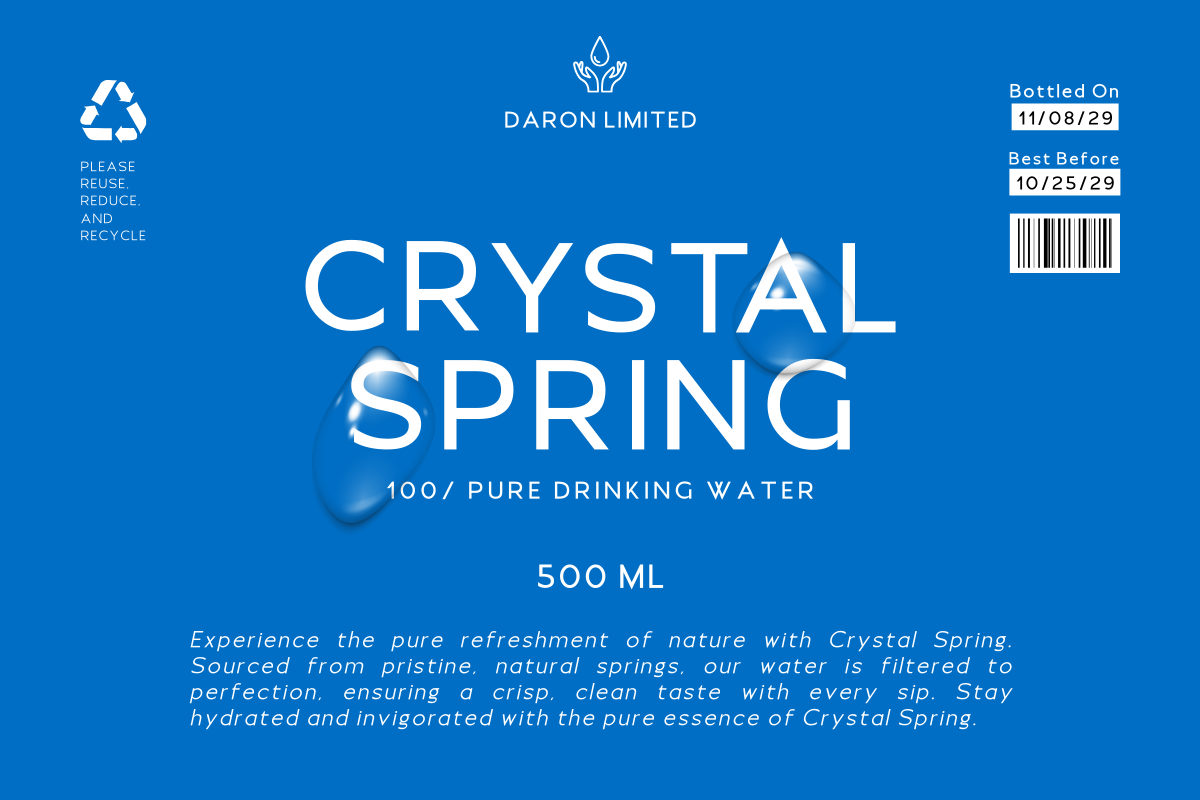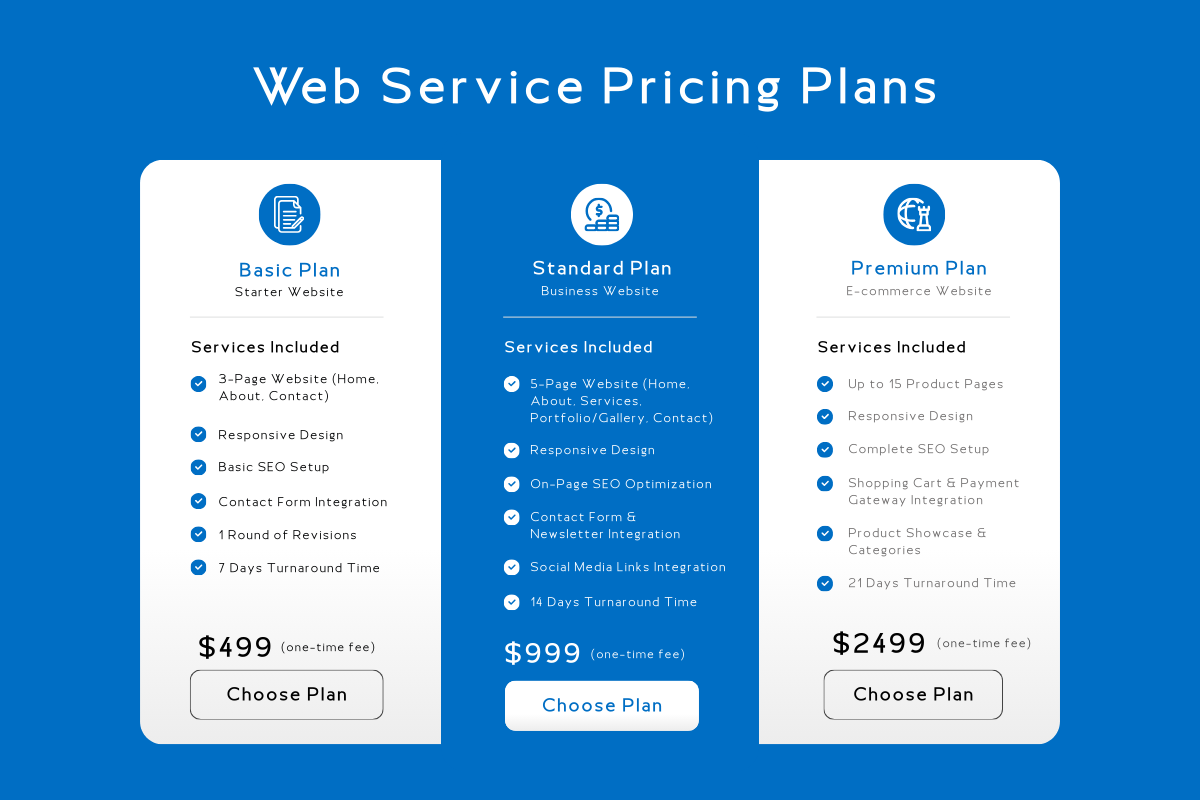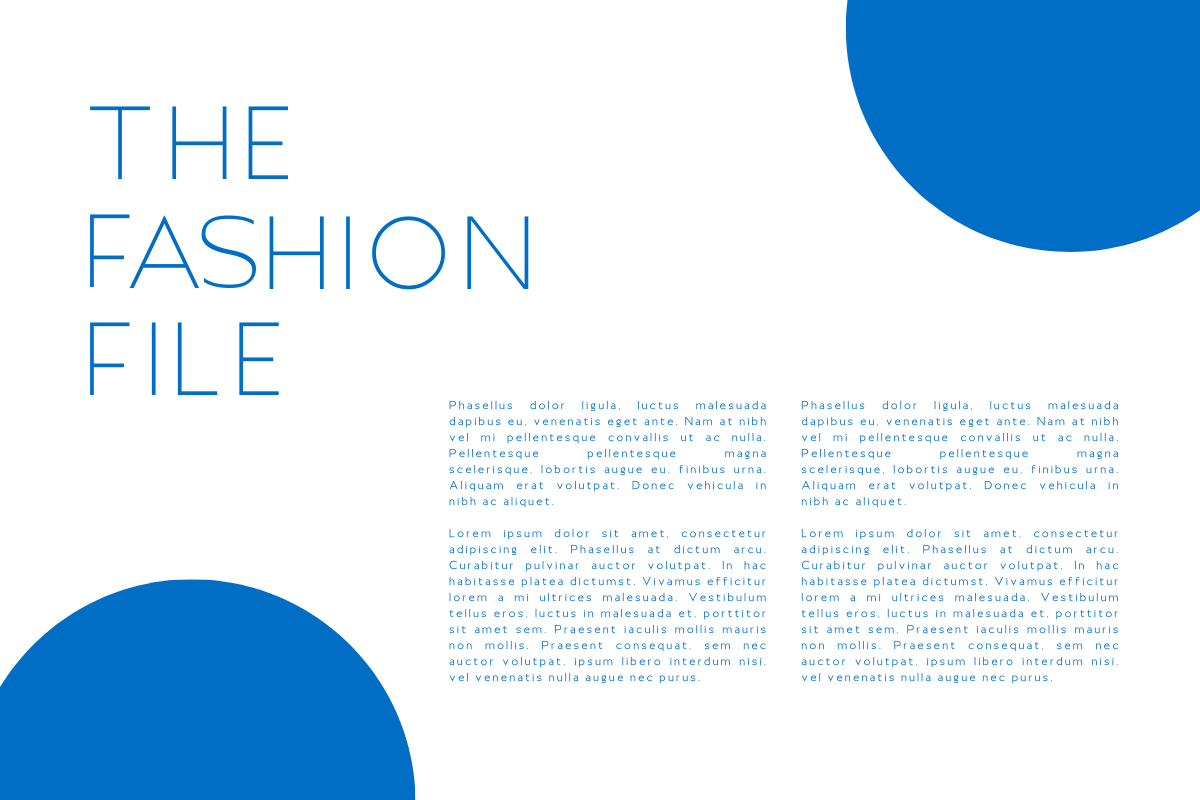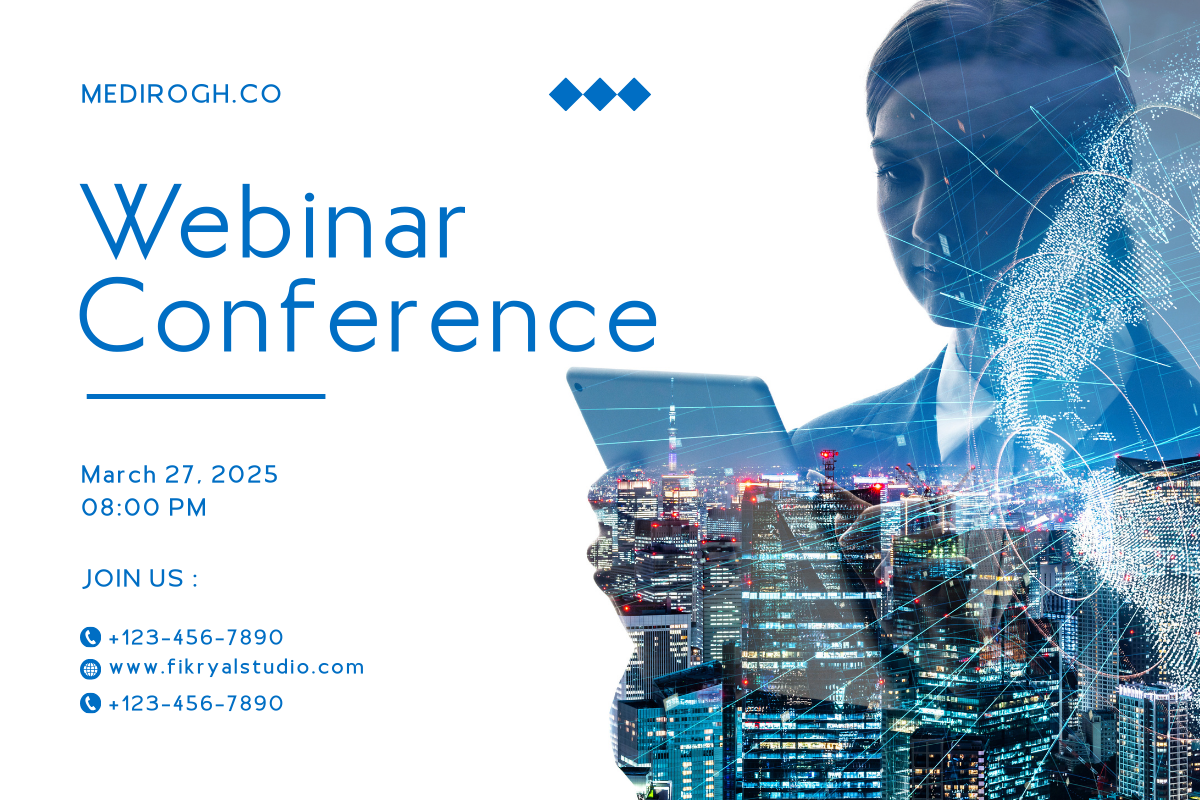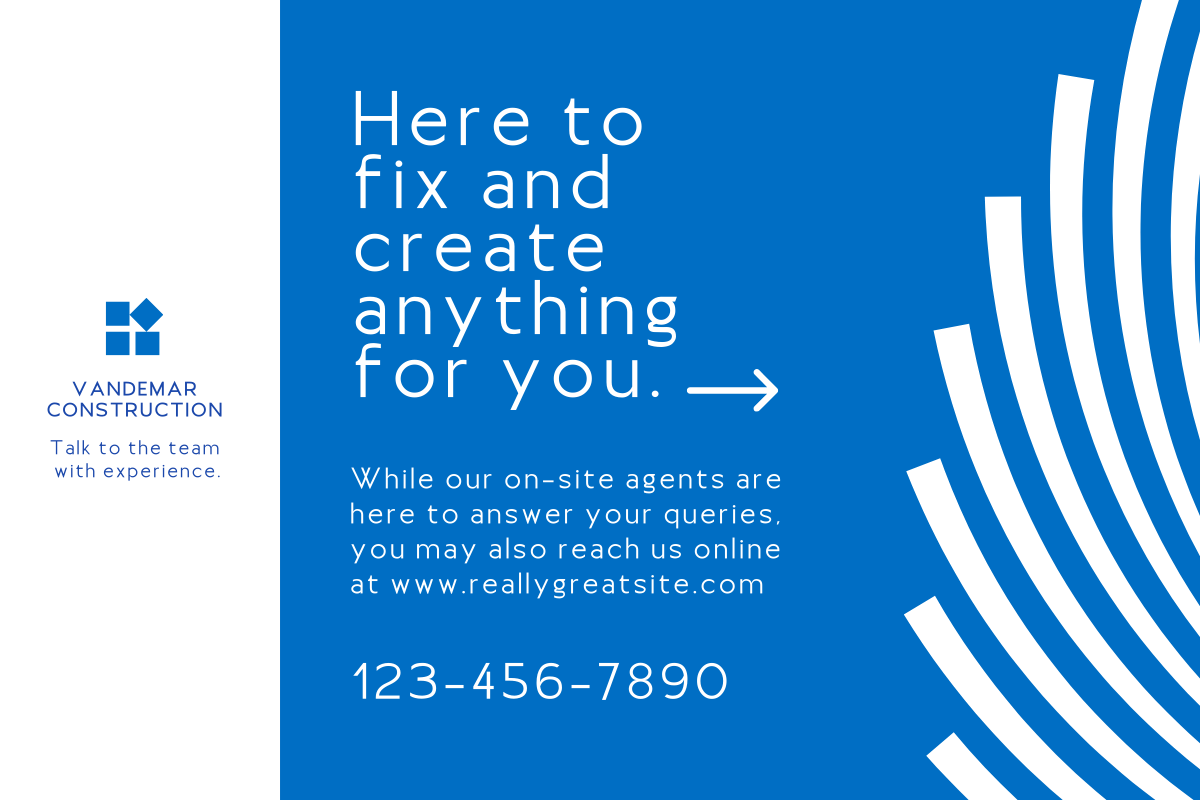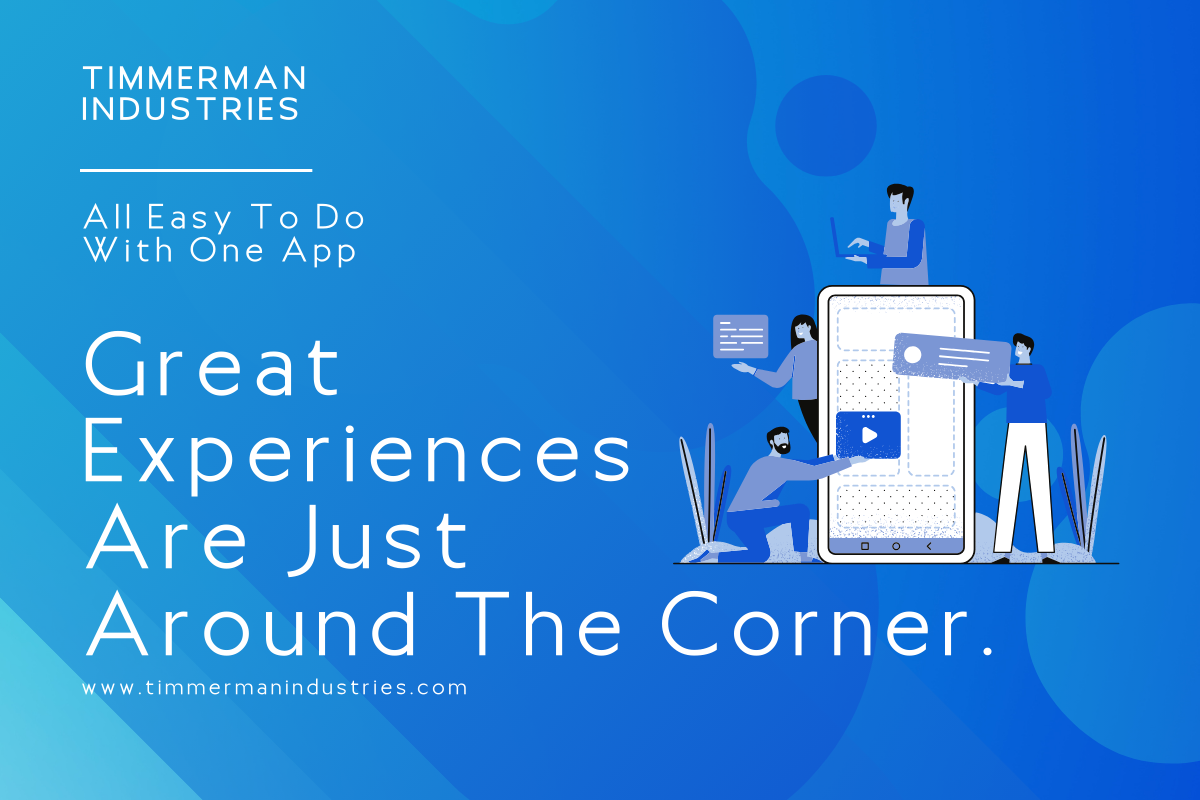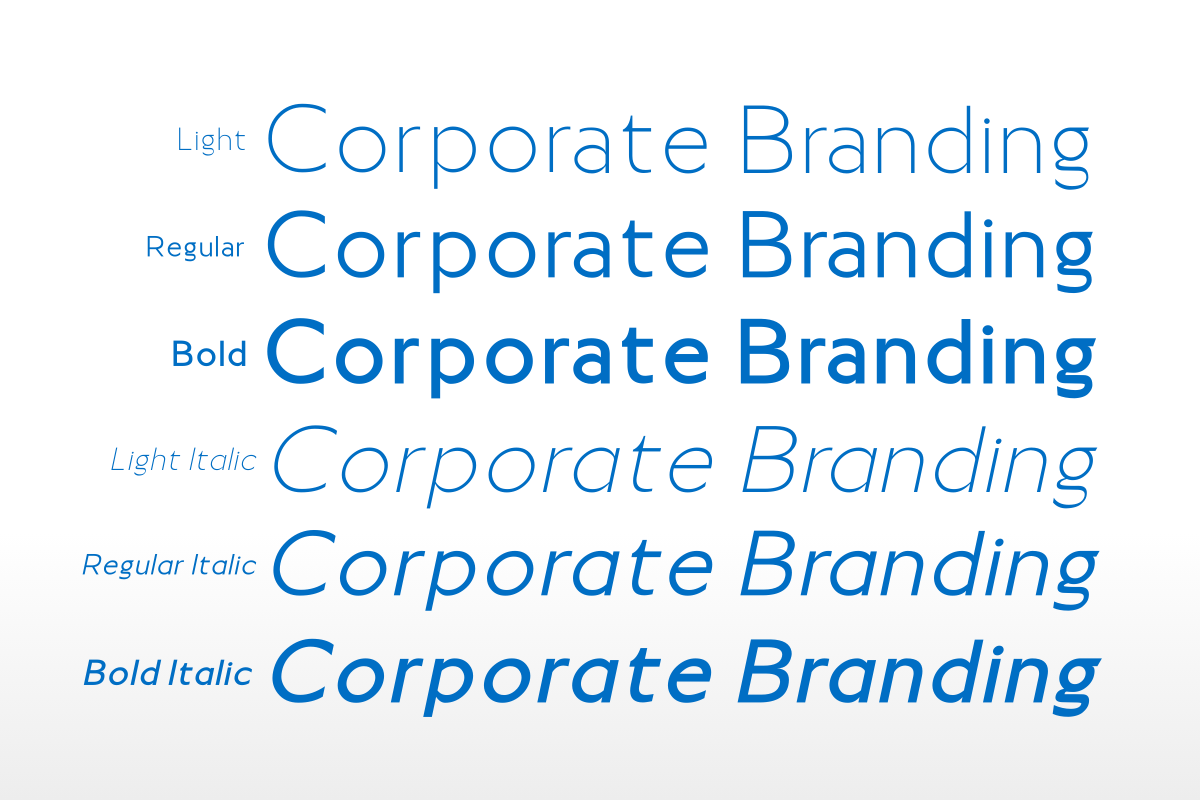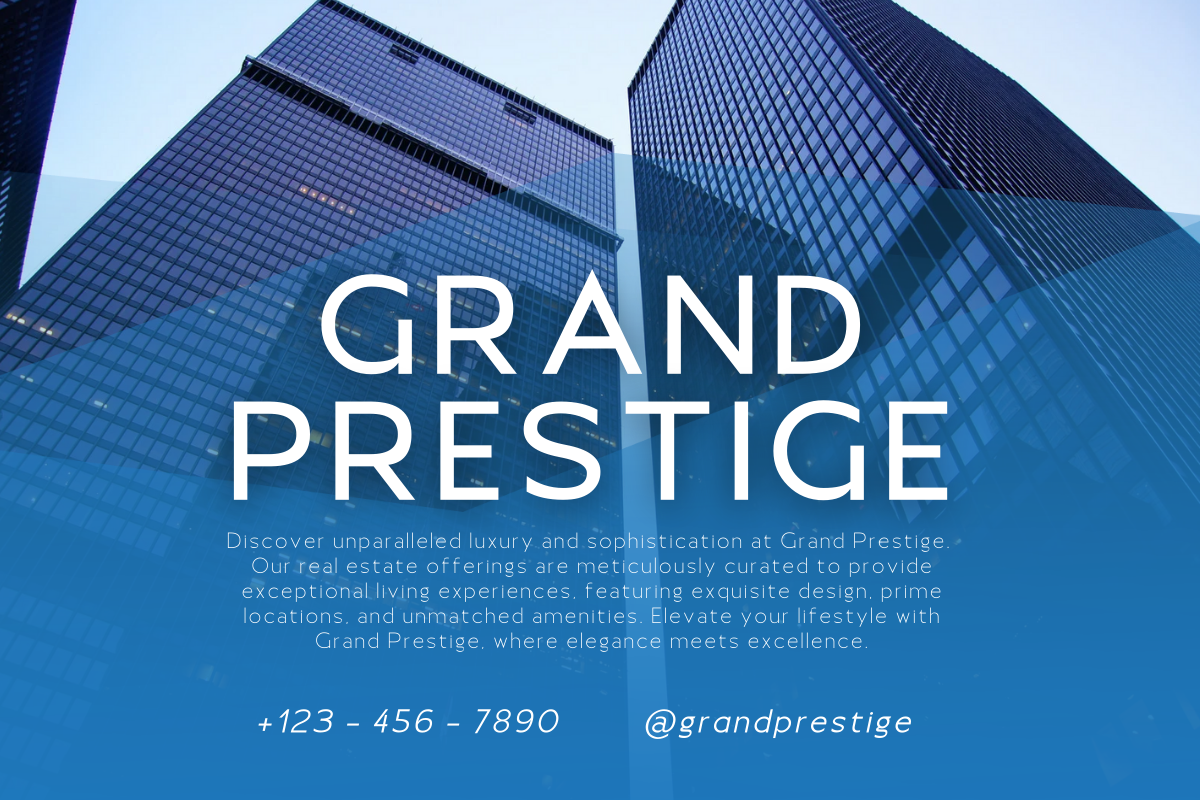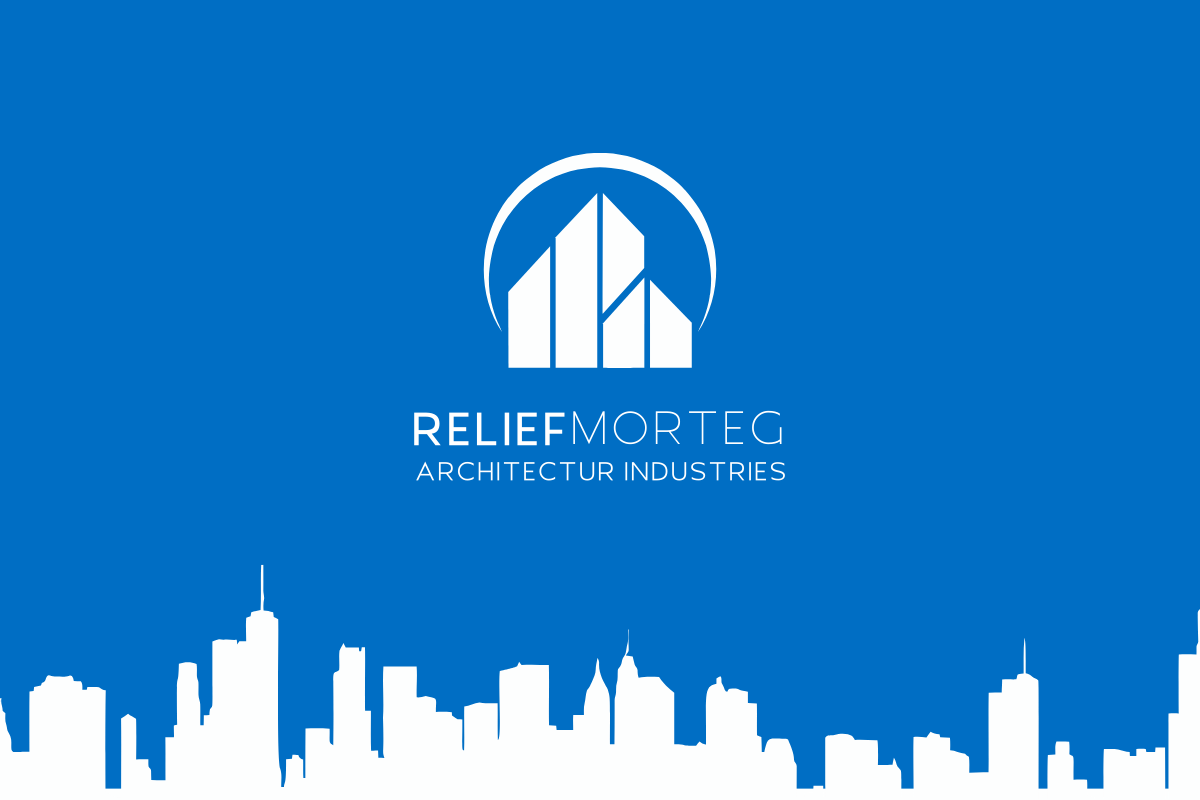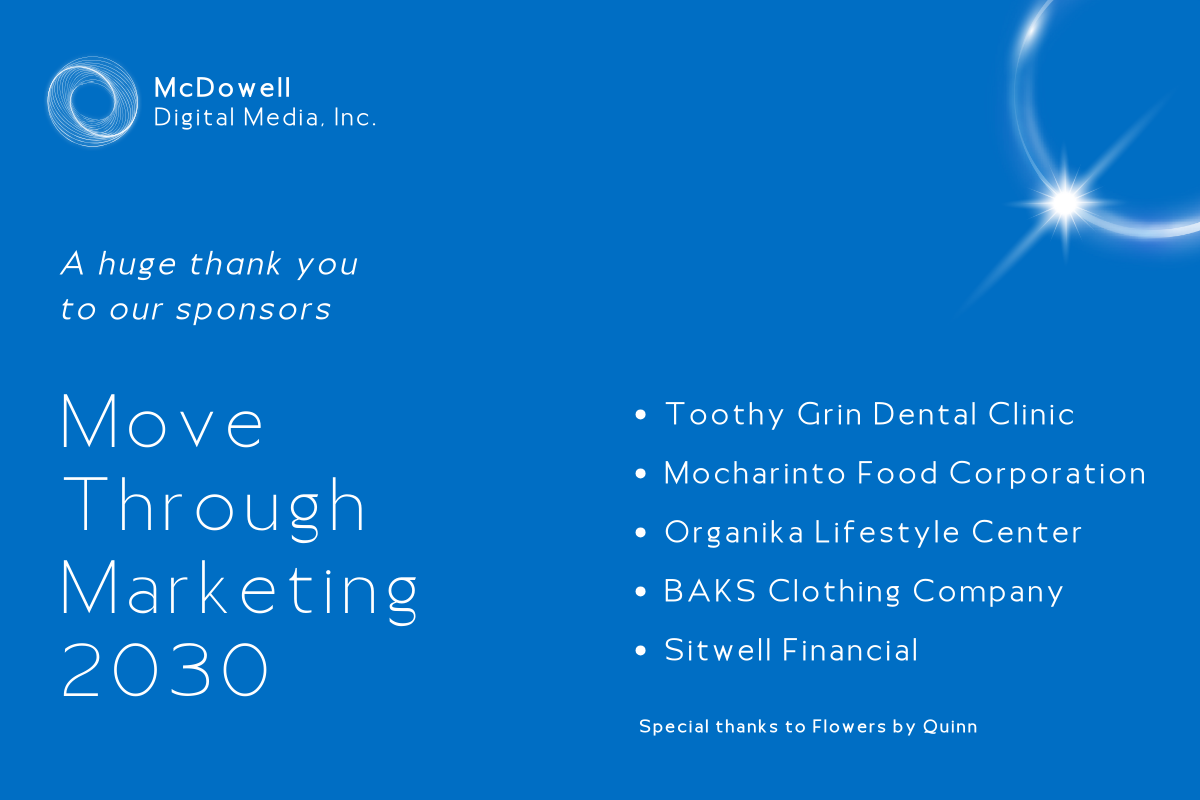
Moirest – Sans Serif Font Family
Moierst is a sleek and modern sans-serif font, perfect for adding a professional and clean touch to any design. Available in six versatile styles, Moierst adapts to various design needs:
Moierst Light offers a delicate and minimal style, ideal for long texts and clean design elements. Moierst Light Italic adds a soft, artistic tilt, perfect for quotes and subtle emphasis.
Moierst Regular serves as the balanced standard, suitable for main text and headlines, while Moierst Italic provides an elegant and dynamic option for adding character and style.
Moierst Bold is strong and attention-grabbing, perfect for headings and standout elements. For a combination of boldness and a dynamic slant, Moierst Bold Italic is ideal for impactful headlines.
Uses of Moierst Font: Branding: Create a cohesive and professional brand identity with its versatile styles. Web Design: Enhance readability and aesthetics on websites and digital platforms. Editorial: Perfect for magazines, newspapers, and online articles, providing clear and stylish typography. Print: Ideal for brochures, posters, business cards, and other print materials, ensuring your message stands out. Moierst is the ideal choice for branding, web design, editorial, and print projects, offering flexibility and style to meet your aesthetic and functional needs.